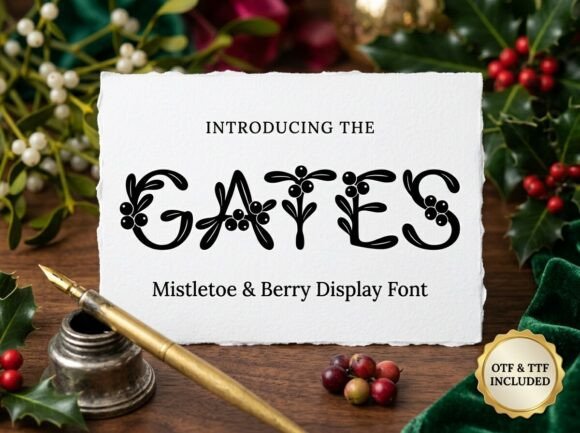
Gates: A Typeface for Timeless Holiday Elegance
When the season turns crisp and the air fills with anticipation, the visual language of our projects needs to match that feeling. We often reach for familiar festive motifs, but there's a difference between something that feels seasonal and something that feels genuinely special. This is where a thoughtfully crafted premium font like Gates enters the conversation. It’s not just another script with snowflakes; it’s a display font designed to bring a specific kind of warmth and sophistication to your work.
At its heart, Gates is a study in graceful contradiction. The letterforms themselves are monolinear—clean, consistent, and modern in their construction. There's no wild variation in stroke weight, which gives the typeface a solid, readable foundation. Yet, woven into and around these precise letters are hand-drawn botanical motifs. Delicate curls of mistletoe leaves and clusters of berries adorn the characters, creating a rhythmic, organic dance between the engineered and the natural. This blend results in a typeface with a soulful, artisanal personality. It feels polished but not sterile, festive but not childish. It carries the quiet confidence of a well-established brand identity meeting the joy of the holidays.
Where This Festive Font Truly Shines
Understanding a font's character is one thing; knowing where to apply it is where the real design work happens. Gates excels in contexts where you want to evoke classic holiday grace and a sense of polished artisanal prestige. Think beyond the generic Christmas card. Consider a luxury winter wedding invitation suite. The font's refined geometry and elegant flourishes set a tone of romance and meticulous planning, perfectly complementing fine papers and calligraphic details. For entrepreneurs and small business owners, it transforms seasonal packaging—think artisanal chocolates, boutique candles, or gourmet gift baskets—into perceived heirlooms. The packaging design becomes part of the gift itself, communicating quality and care at first glance.
In the realm of editorial design and publishing, Gates can create captivating headers for holiday magazine features, blog posts about seasonal decor, or chapter titles in a festive cookbook. Its decorative nature makes it a standout creative font for headlines, but it’s crucial to pair it wisely. A strong, clean sans serif font for body copy will provide the necessary contrast and ensure your text remains highly readable. This thoughtful font pairing is a hallmark of professional modern typography. For social media graphics, Gates can lend a cohesive, high-end look to your holiday campaign, making your Instagram grid or Pinterest pins feel curated and intentional rather than hastily assembled.
Practical Guidance for Integrating Gates
Choosing a display font like Gates is an aesthetic decision, but it’s also a practical one. Before you commit, test it with your specific project text. Its intricate details, while beautiful, are designed for impact at larger sizes. Run a readability test at the scale you intend to use for headlines. While it’s not a handwritten font in the loose, scrawling sense, its organic elements require breathing room. Ensure your letter-spacing is adjusted if needed to maintain clarity. For web design, consider using it for hero banners or key promotional headings where its full character can be appreciated, but avoid setting entire paragraphs in it.
Evaluate the included styles and alternates. A well-built commercial font like Gates often comes with stylistic sets or alternate characters that allow you to customize the look further—perhaps swapping out a particular berry cluster or leaf curl. This flexibility is invaluable for creating unique logo design elements or bespoke monograms. Always review the licensing. If you’re using it for client work, merchandise, or any commercial application, ensure your license covers that use. Reputable design assets come with clear terms, protecting both you and your client.
Ultimately, the best way to gauge a font's fit is to see it in context. Mock up a quick brand identity board. Place Gates alongside your color palette, imagery, and a potential body text font. Does it support the story you’re telling? Does it feel like an authentic extension of your brand’s voice during the holiday season, or does it overwhelm the message? Gates isn’t a font for every project, and that’s its strength. It’s a specialized tool for designers, marketers, and creators who understand that sometimes, the most powerful communication is wrapped in a layer of considered, beautiful detail. It ensures every word carries a signature look of seasonal warmth, transforming ordinary messages into memorable gestures.